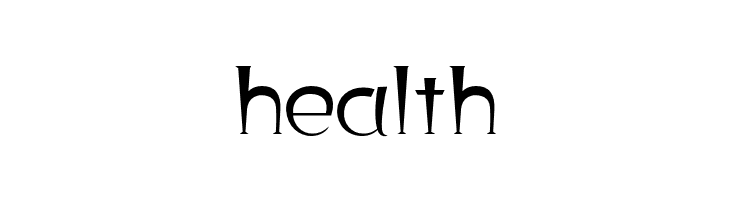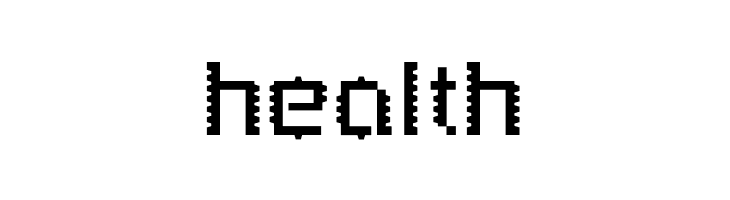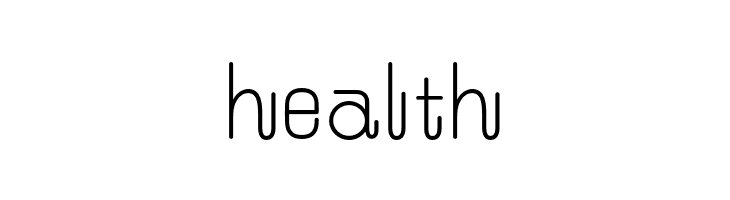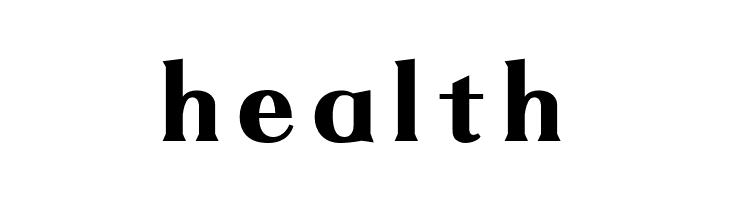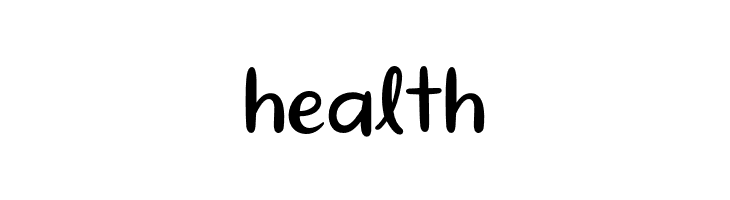
A modern, artistic font with sharp angles and smooth curves, ideal for creative projects.
A pixelated, retro-style font with a digital, tech-inspired design.
A playful and modern font with decorative loops and curves.
A playful and whimsical font with decorative, face-like character elements.
A classic serif font with bold, elegant curves and strong presence.
A playful and artistic font with unique curves and angles.
A bold, decorative font with high contrast and artistic flair.
A playful and elegant handwritten font with smooth, flowing lines.
A playful, handwritten font with rounded, smooth letterforms.